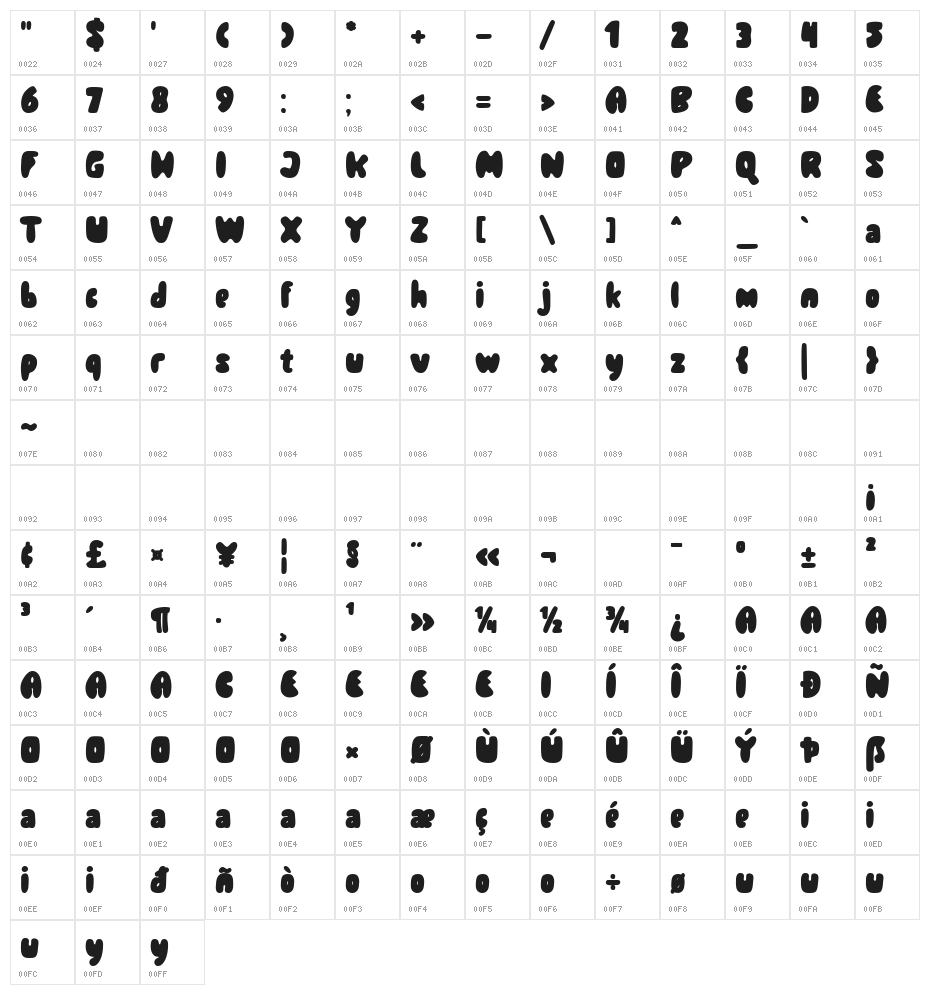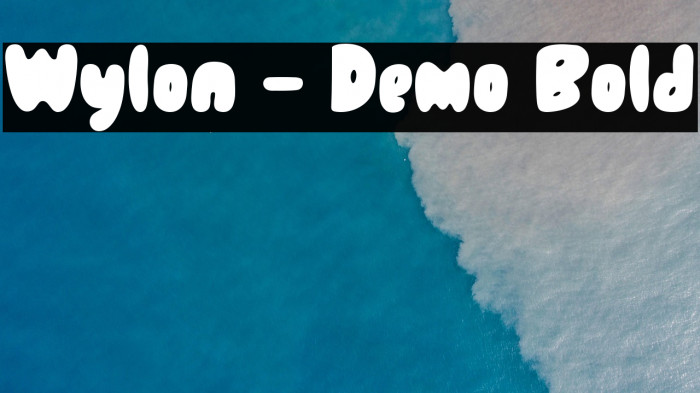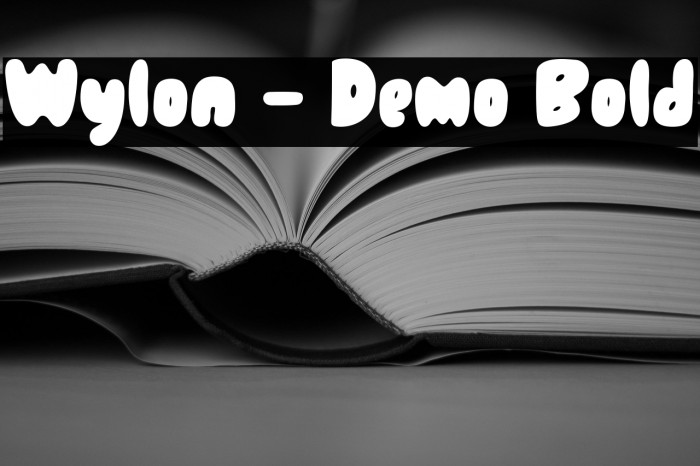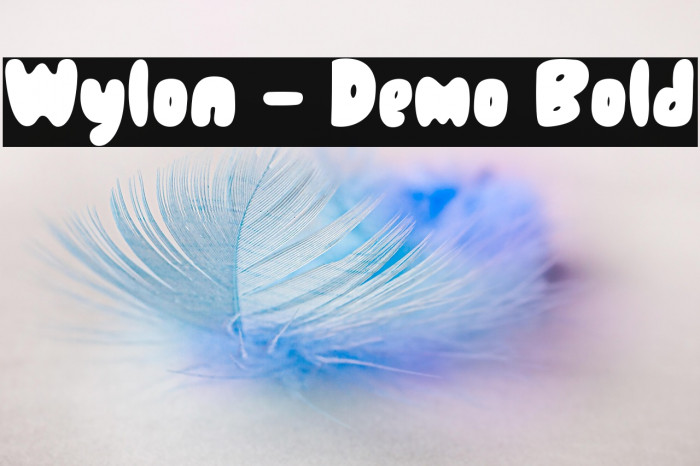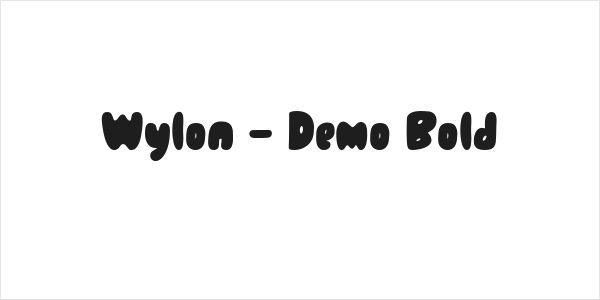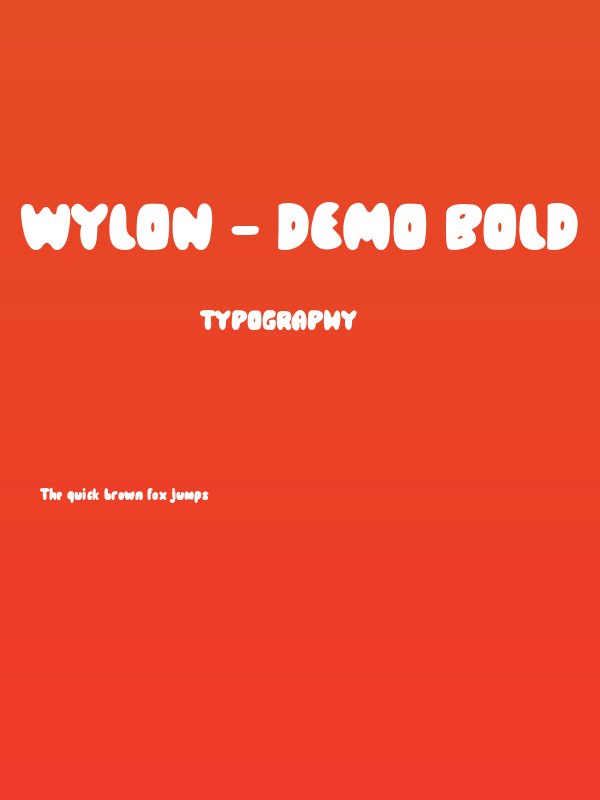
Wylon - Demo Bold Font
Wylon - Demo Bold Description
This font features a bold and playful design with rounded, bulbous characters that create a sense of fun and whimsy. The letters are thick and substantial, giving a strong visual impact. The style is reminiscent of bubble letters, with a smooth and consistent stroke width throughout. The uppercase and lowercase letters maintain a uniform appearance, while the numbers and special characters are equally bold and expressive. This font is ideal for projects that require a lively and engaging aesthetic.
| Overall Style | Playful, Fun, Bold |
| Use Case | Headlines, Posters, Branding |
| Proposed Projects | Perfect for children's books, playful branding, party invitations, and eye-catching posters. |